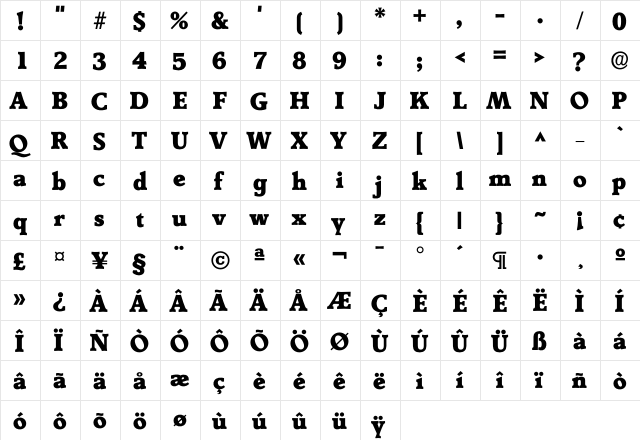
Derrin Heavy
Design Context for Derrin Typeface
Derrin offers clean, dependable letterforms without strong stylistic allegiance, making it a practical choice for designers who need flexibility.
Pro Tip: Pair Derrin with a font of contrasting weight or personality to build a more expressive typographic hierarchy.